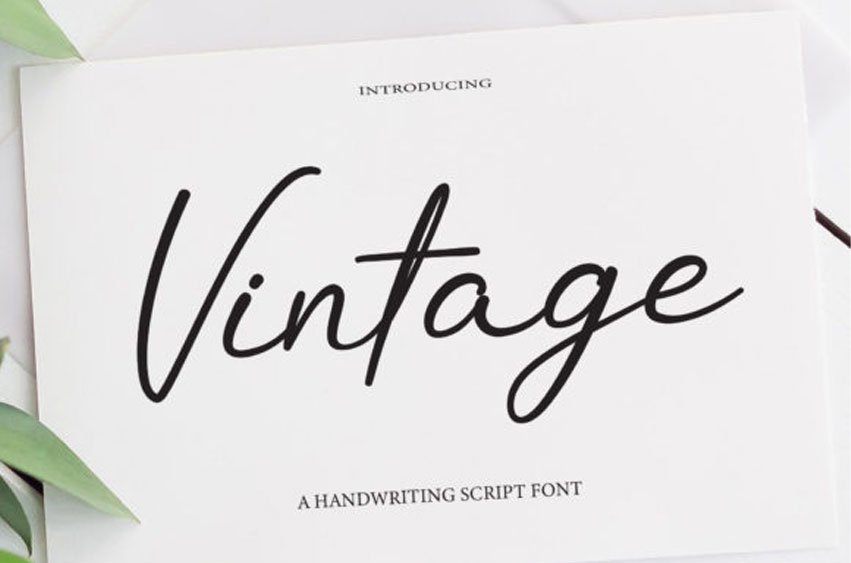
Vintage Script Font is a delicate handwritten font that is carefully crafted to produce cool and unique designs.
This font can be used to write letters, invitations, food products and more.